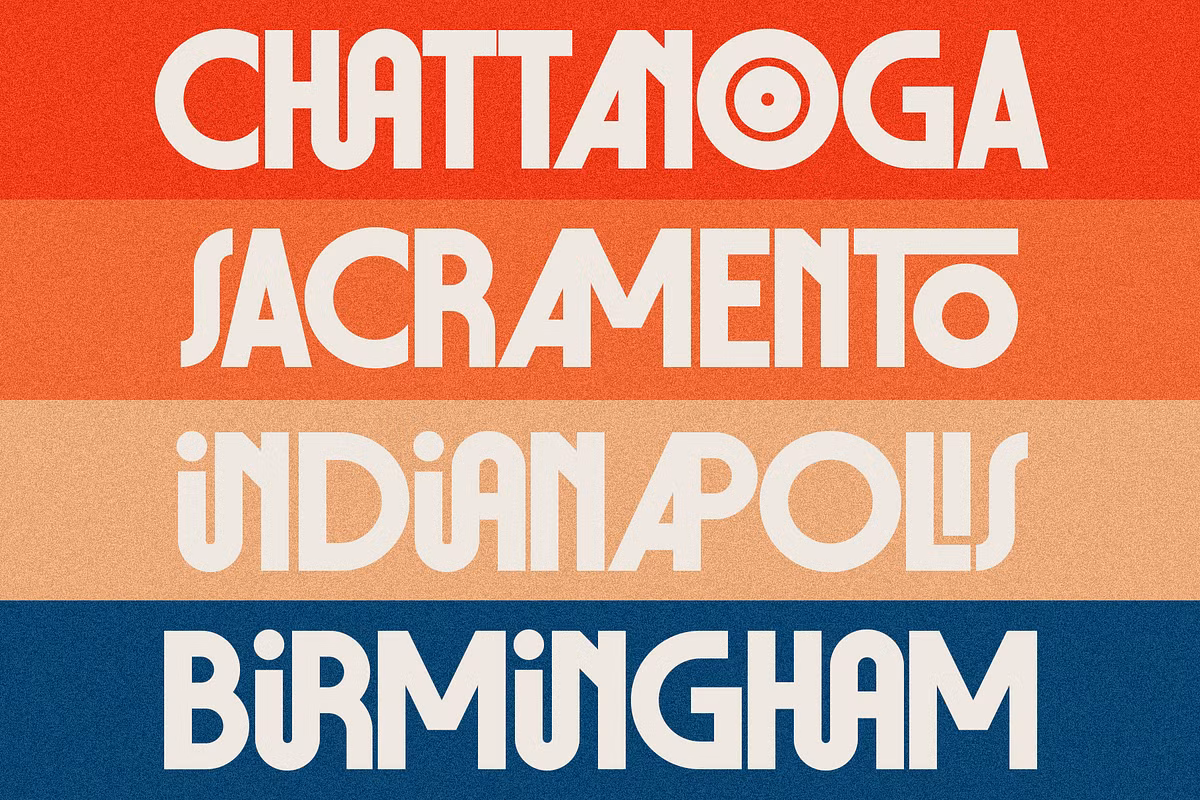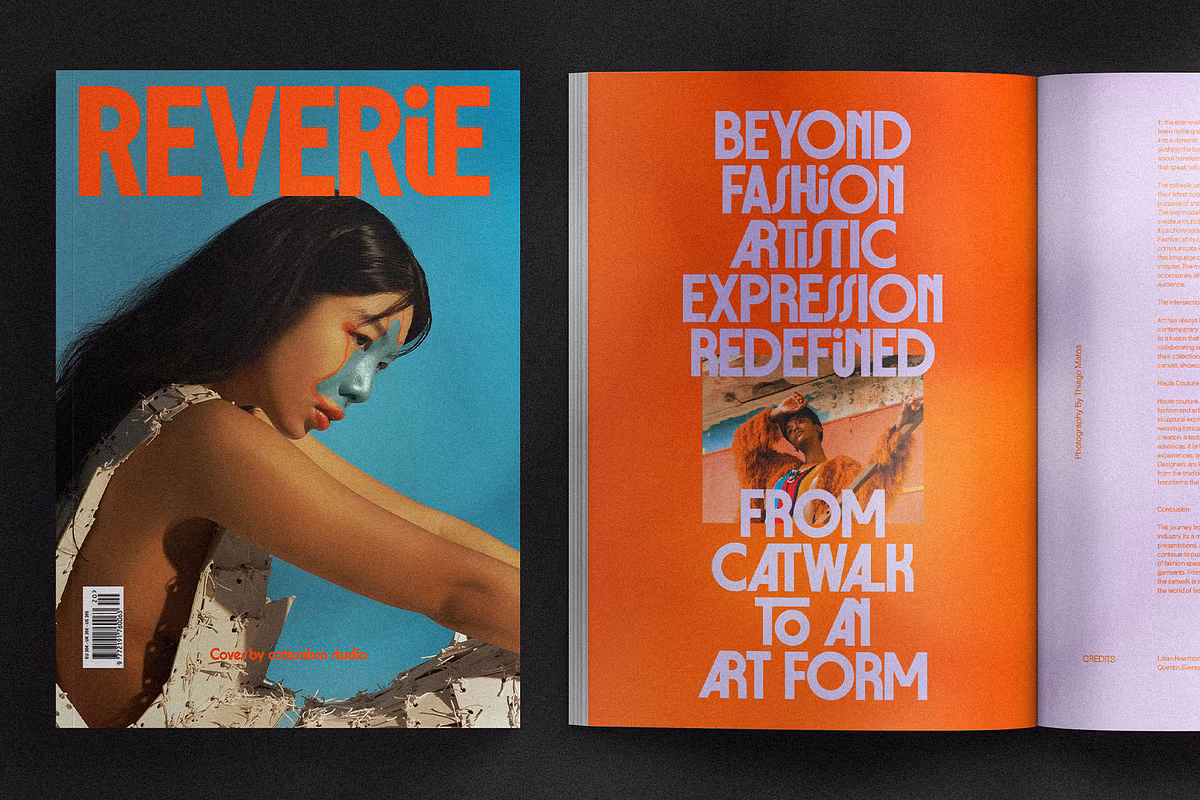
Collidge - Bold Ligature Rich Font
Collidge: Bold Ligature Rich Font for Impactful Design Projects
Collidge is the typeface, from a type designer who wants to make a mark in typography. Collidge is made for people who are not just looking for a font. Collidge is a statement that can help any design project stand out. Collidge offers a styles that work in situations. Collidge hopes to become a favorite, for designers who need impact.
Collidge font showcased in a design project.
Design Style of Collidge
Collidge is a sans serif font. Collidge has strokes and sharp angles that make the letters look strong and clear. Collidge creates a look that catches the eye. Collidge feels modern. Collidge works for projects that need to stand out. Designers can use Collidge for a streetwear logo or a magazine layout.
Collidge is versatile. Collidge offers four styles: outlined, rounded and rounded outlined. This lets you pick the version that fits the look of your project. When I need a font that can adapt I reach for Collidge. Collidge keeps the weight and the character that people know from Collidge. That makes Collidge a good choice, for design.
Collidge comes with, than 150 ligatures and alternates. Collidge invites the designers to try typography. When I use Collidge I see the many options let the designers add attention grabbing parts to the designs. The many options turn text into visual messages.
Visual representation of Collidge character sets
Visual representation of Collidge’s character sets.
Character Sets and Multilingual Support
I have used Collidge. Collidge has a big character set. Collidge includes characters for, than 90 languages. If you work on a project for kinds of people or you work with brands, from countries Collidge can help. Collidge lets your designs speak to cultures and languages while keeping the look you want.
Collidge’s character set has a set of characters. Collidge’s character set includes the letters and also special characters and symbols. Collidge’s character set gives you the ability to use the font on mediums. I have used Collidge’s character set in print. On screen. Designers need a typeface that can work in design contexts. Collidge’s character set can fit those contexts.
I use Collidge. I do not worry about language barriers, in my designs. Collidge lets me add text, in languages easily. Collidge makes sure my message is clear wherever it is seen.
Use Cases for Collidge
Collidge is built for projects, across the industries. I have used Collidge on projects. Collidge is bold and versatile. Collidge works for the applications, including:
• Sports Posters and Promotions: Use Collidge to make sports posters that show the excitement and the energy of sports events. The sports posters capture the excitement and the energy of sports events.
• Streetwear Labels: I think the modern style of Collidge helps fashion lines improve the brand of fashion lines that target an fashionable audience.
• Edgy Magazine Layouts: For the cover headlines or the feature articles I notice that Collidge adds a look. Collidge makes that bold look catch the reader’s eye.
• Website Banners: The website banners make your online presence easy to remember. The website banners catch the eye. Keep the visitors looking. When the website banners appear at the top of a page the website banners draw attention. Invite the visitors to explore more of the site. I have watched website banners change the way people see a site.
• Dynamic Logo Designs: I notice Collidge has character and unique ligatures. I find Collidge perfect, for logo design. I know Collidge helps your brand leave a lasting impression.
Collidge font used in dynamic logo designs
Collidge font in dynamic logo designs.
I have used the font in projects. See how the font adapts. These use cases show the font can adapt to needs. The font serves as a tool, for any designer who wants to make designs that stay in mind and draw interest.
Pairing Suggestions with Collidge
When I pair fonts Collidge gives options that can improve the design. I notice that Collidge is bold and expressive. Collidge works best with typefaces that balance Collidge’s strength.
For a match try a minimal sans serif font like Helvetica or Roboto for the body text. Helvetica or Roboto makes Collidge’s bold headlines stand out without overwhelming the viewer. Helvetica or Roboto works well.
I have found that pairing Collidge with a script font such, as Pacifico or Dancing Script adds a fun feel. The contrast, between the block shapes of Collidge and the smooth flow of a script font creates a look that gets noticed. The result works well.
Collidge is more, than a font. Collidge is a design tool that helps you create projects. Collidge has styles the character set and the multilingual support. Collidge works for applications. I have used Collidge on my posters and digital work. If you are making a poster designing a brand identity or creating content Collidge is a choice. Why wait? Try. Let your ideas flow.